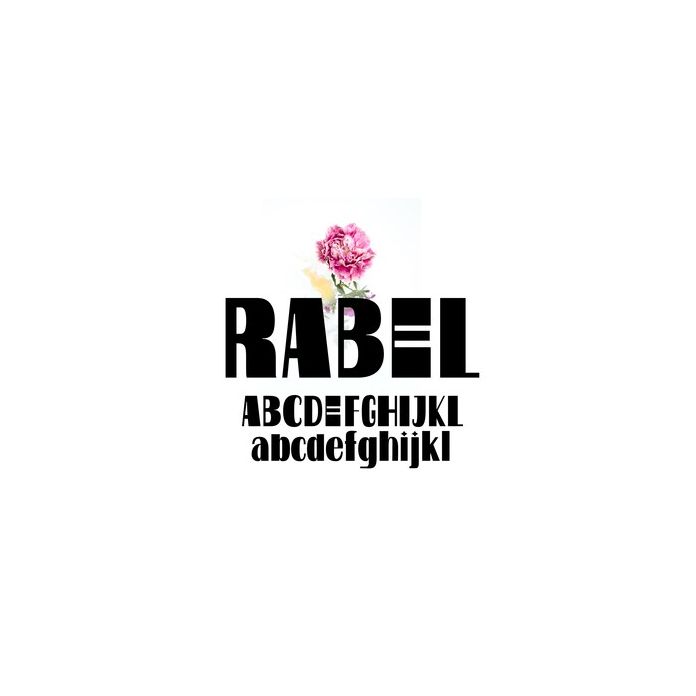
Rabel features a bold and straightforward Display style that is suitable for any design project. Since this font has a sharp and natural cut, it is a very dynamic product font used for projects, logos, branding, screen printing, crafts, advertising, and celebration personalization. etc . Includes alphabet, ligature, numbers and punctuation.